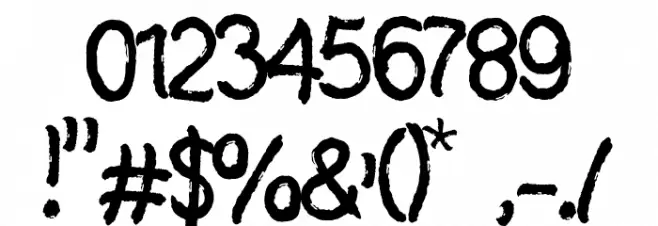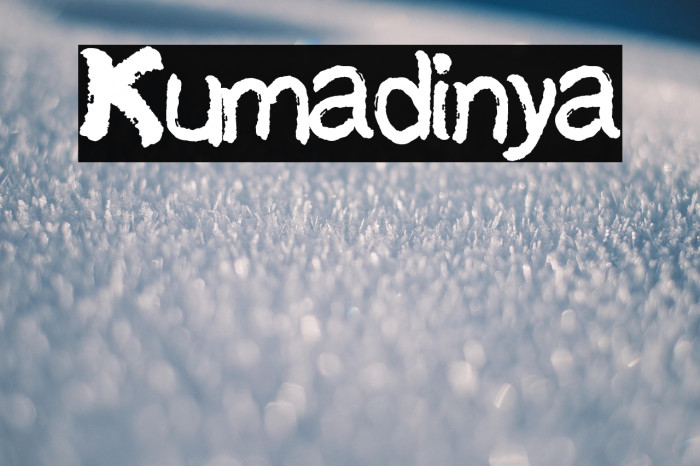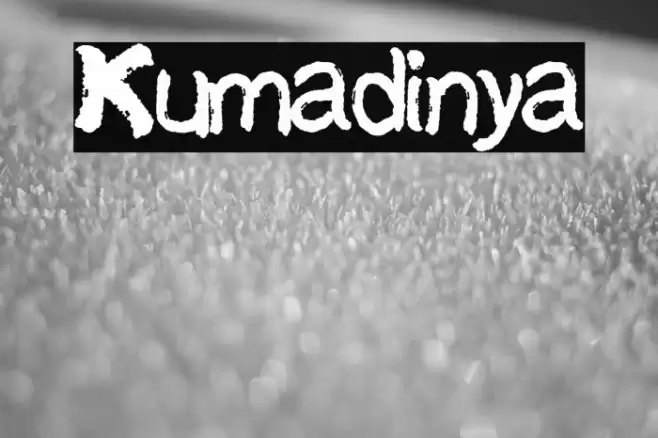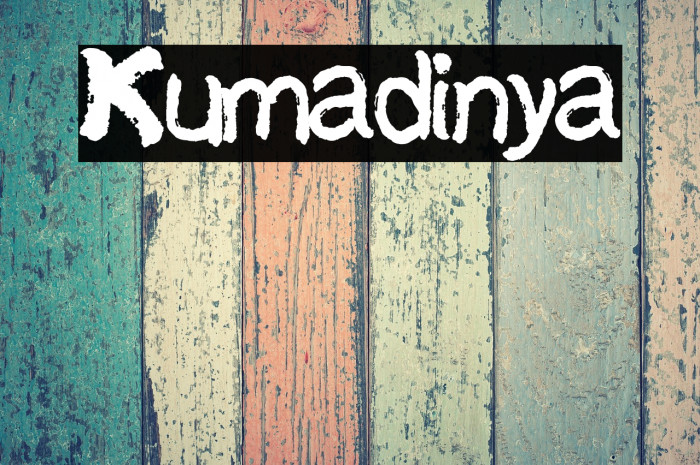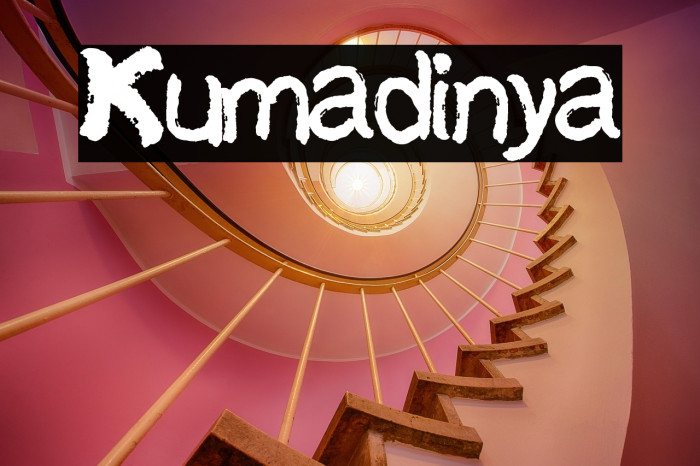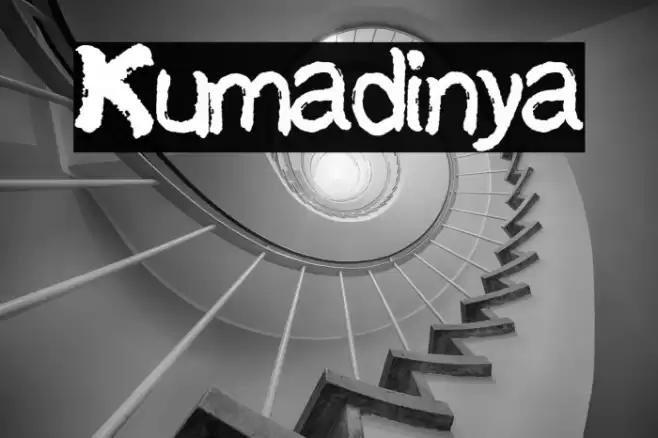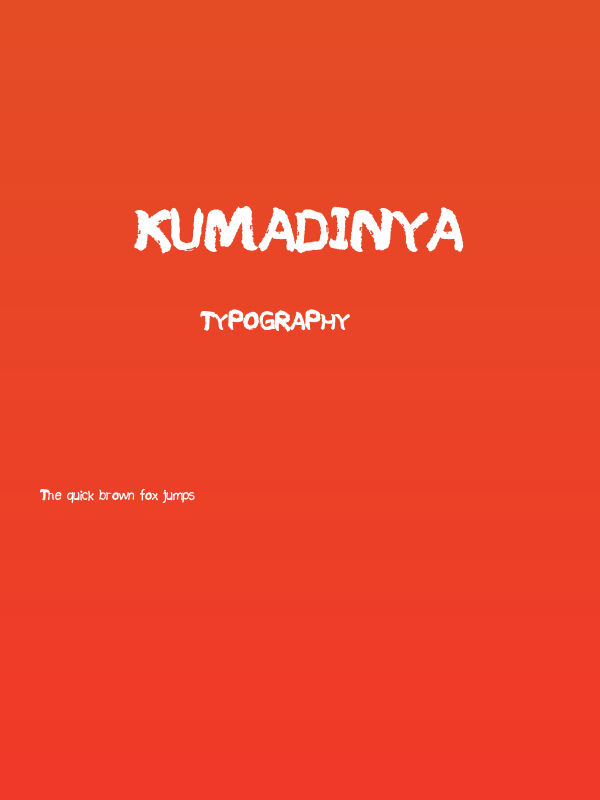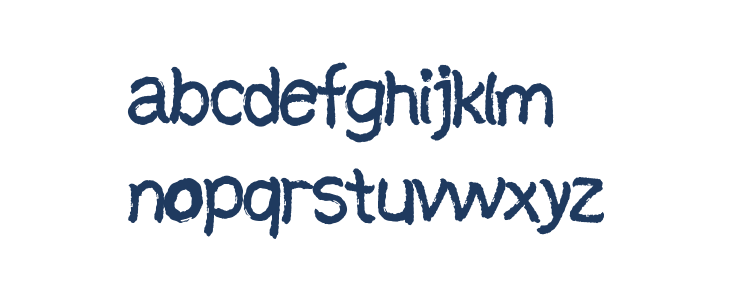
Kumadinya Font
Kumadinya Description
This font exhibits a bold, hand-drawn style with a textured, brush-like appearance. The characters are irregular and organic, giving a sense of movement and energy. The uppercase and lowercase letters maintain a consistent style, with rounded edges and varying stroke widths that add to the font's dynamic look. The numerals and special characters follow the same aesthetic, ensuring uniformity across all glyphs. This font's unique, artistic flair makes it stand out, ideal for projects that require a personal touch or a creative edge.
| Proposed Projects | Ideal for creative projects such as posters, artistic branding, and unique invitations. |